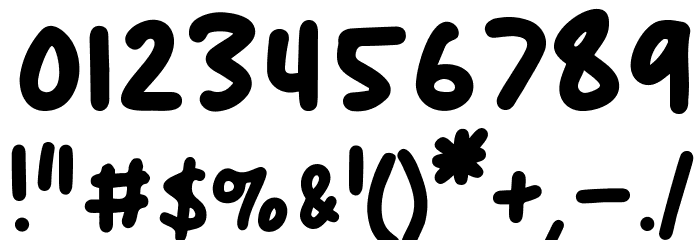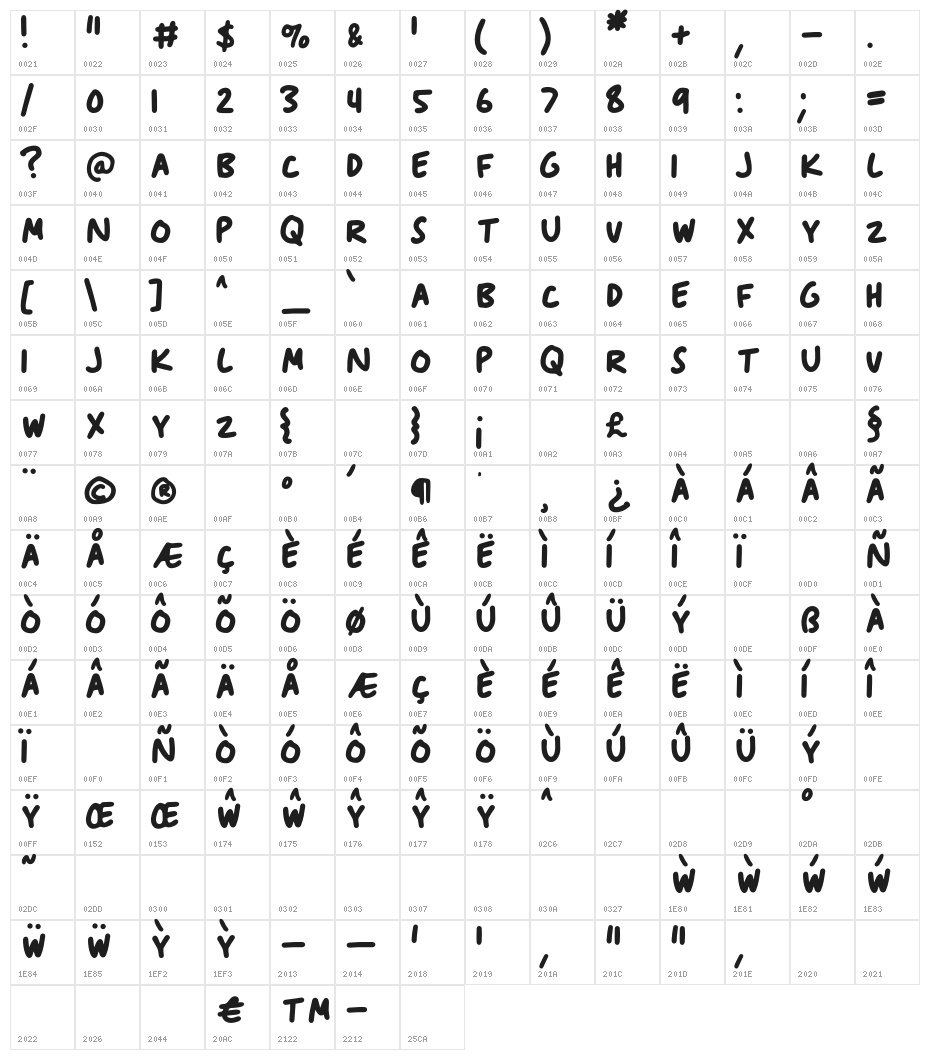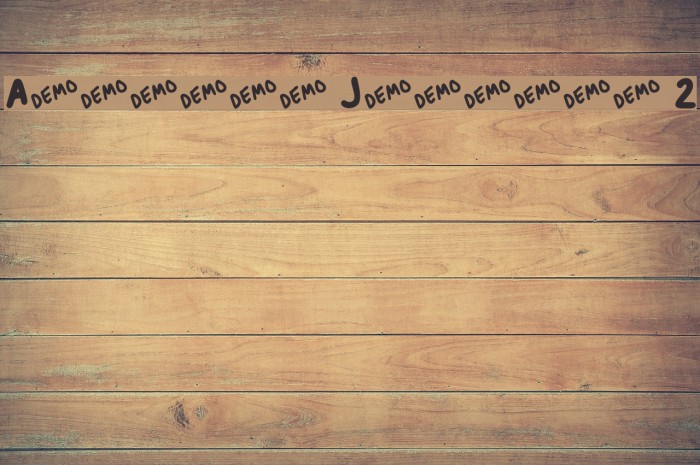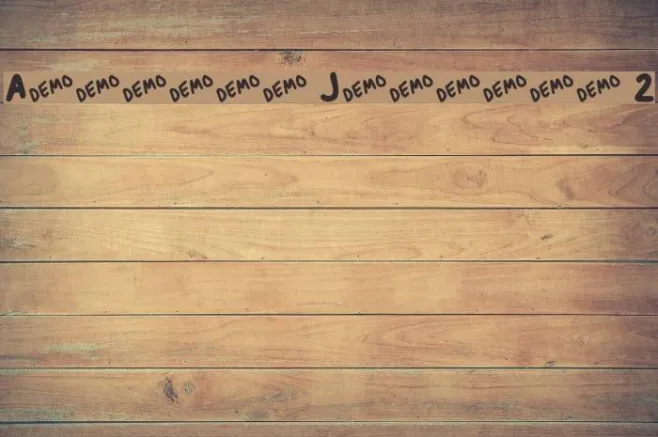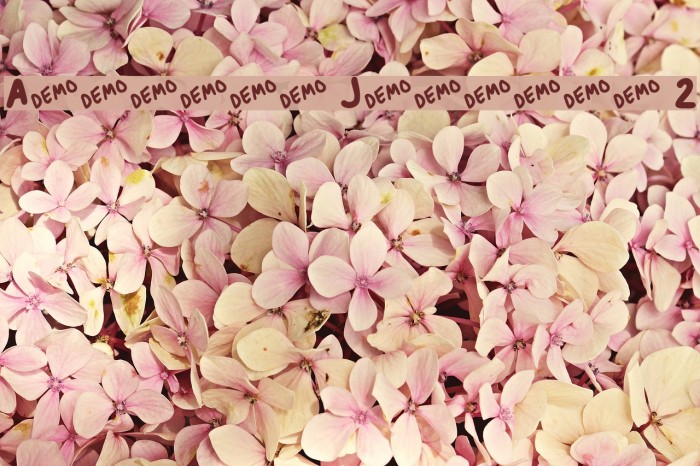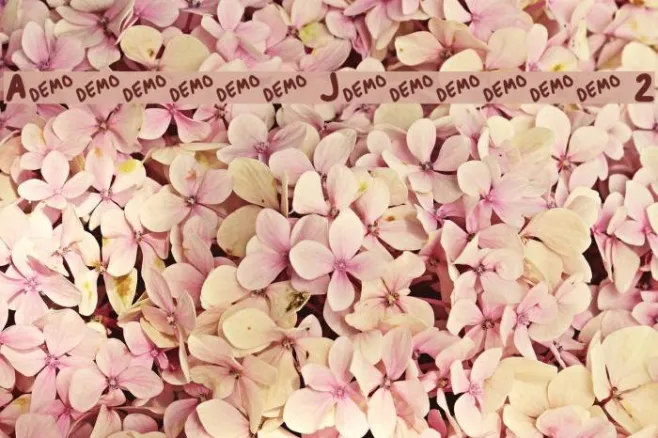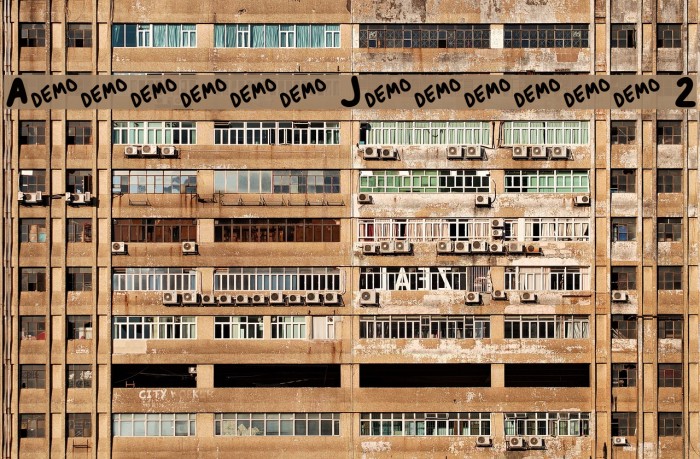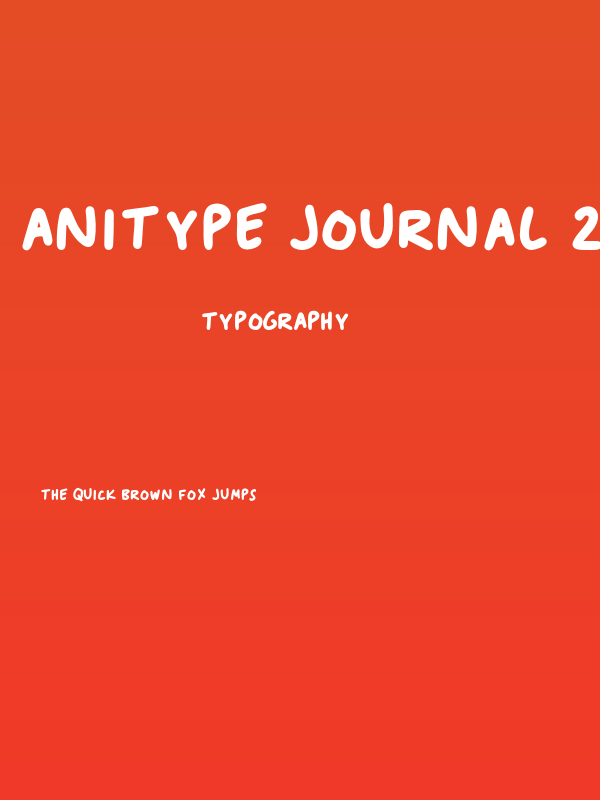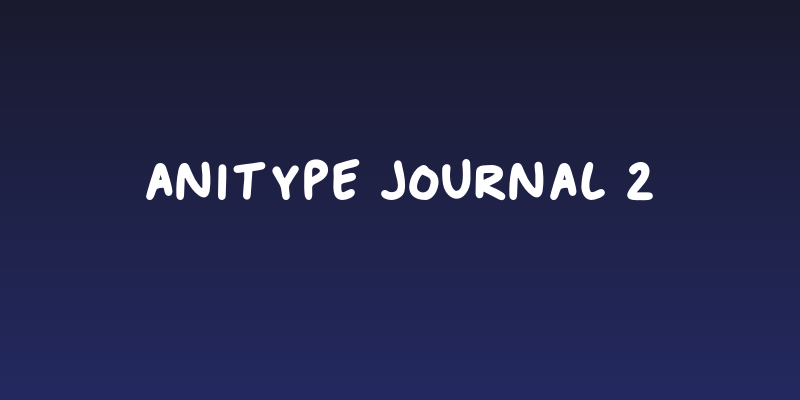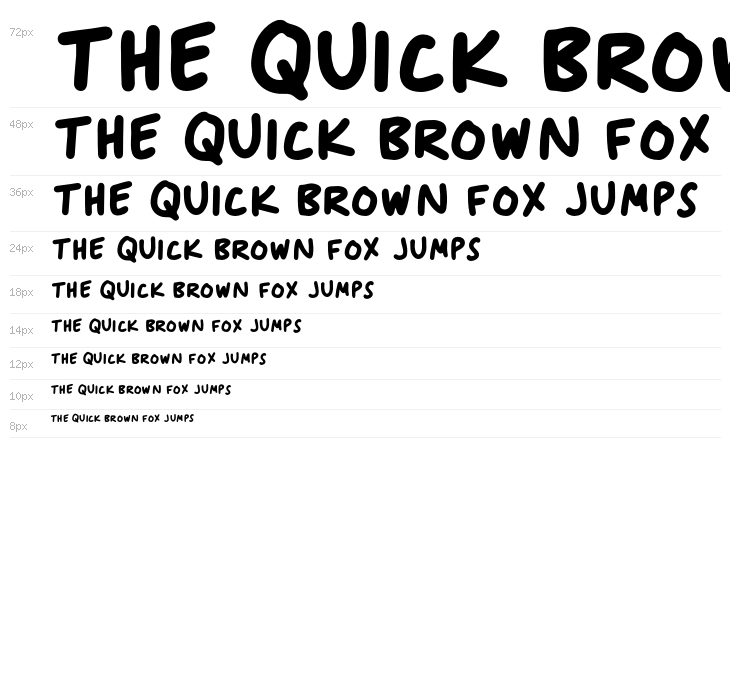
Anitype Journal 2 Font
Anitype Journal 2 Description
This playful and bold font features rounded, thick strokes that give it a friendly and approachable appearance. The characters are slightly irregular, adding a whimsical and hand-drawn feel. The uppercase letters are bold and prominent, while the lowercase letters maintain a consistent style that complements the uppercase. Numbers and special characters follow the same design principles, ensuring a cohesive look across all text. The font's informal style makes it ideal for projects that require a personal touch or a fun, casual vibe.